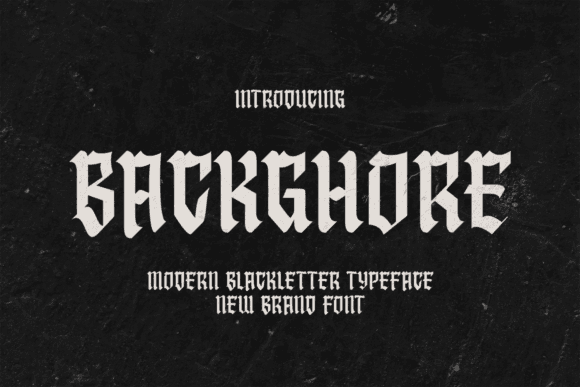
Backghore Font
The “Backghore” blackletter font is a striking and traditional typeface that evokes the elegance and historical richness of medieval script. While it carries a strong historical connotation, Backghore can be used in a variety of modern contexts to create a unique and sophisticated aesthetic. It works well for branding, posters, invitations, and decorative purposes.
Features:
- Blackletter style
- Medieval elegance
- Versatile usage
- Perfect for branding and decorative projects